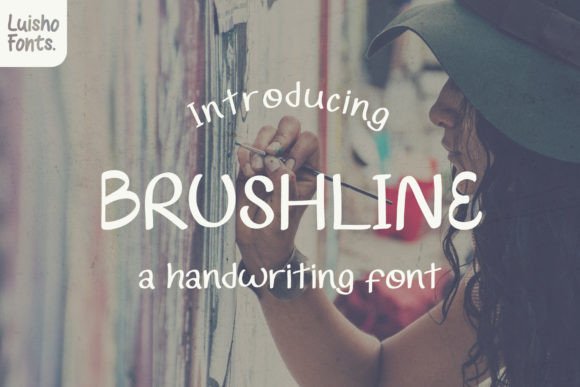
Immerse yourself in the extraordinary world of Brushline Font, a groundbreaking script font that will transform your digital creations into masterpieces. Brushline Font is not just a font; it's an artistic expression that captures the essence of style and elegance.
Unleash your creativity with this exceptional font family, meticulously designed to suit your every need. With its bold, distinct strokes and captivating letterforms, Brushline Font breathes life into your designs, making them stand out in the digital realm.
If you dare to be different, to make a bold statement with your creations, Brushline Font is your weapon of choice. It's the perfect font for logos, posters, banners, and any other digital project that demands attention.
Open the doors to a world of endless possibilities with Brushline Font. Let your imagination soar as you craft stunning logos that embody your brand's essence, or design eye-catching posters that leave an indelible impression. The possibilities are boundless.
Don't settle for ordinary fonts that blend into the background. Embrace the uniqueness of Brushline Font and watch as your digital creations take center stage, captivating your audience and leaving them in awe.